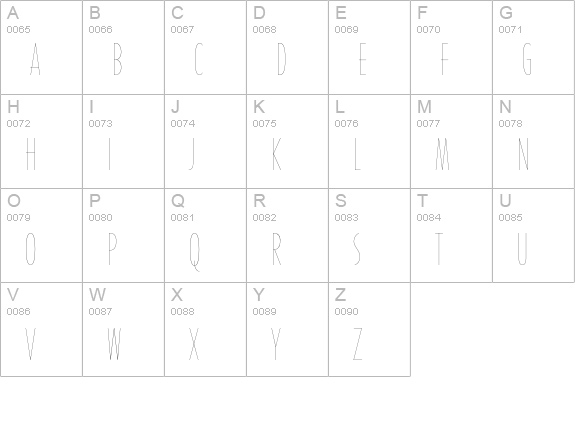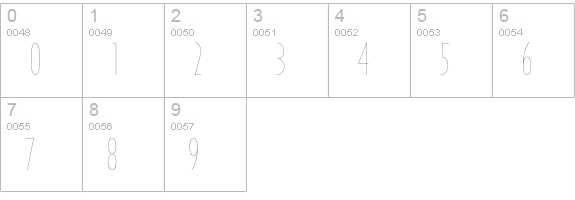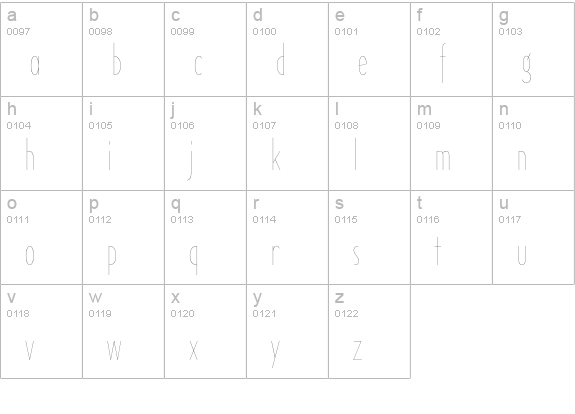
RomeoSkinnyCond Font Details
RomeoSkinnyCond is a sleek and modern font that exudes elegance and sophistication. With its slender and condensed letterforms, this typeface is perfect for adding a touch of refinement to any design project. The clean lines and sharp angles of RomeoSkinnyCond make it ideal for creating eye-catching headlines, logos, and branding materials. Not only does RomeoSkinnyCond offer a stylish and contemporary look, but it also conveys a sense of grace and sophistication. Its versatility allows it to be used across a wide range of applications, from print materials to digital designs. Best of all, RomeoSkinnyCond is available for free download at FontsMarket.com. This means that you can easily access this exquisite font and incorporate it into your projects without any additional cost. Don't miss out on the opportunity to elevate your designs with the timeless beauty of RomeoSkinnyCond.